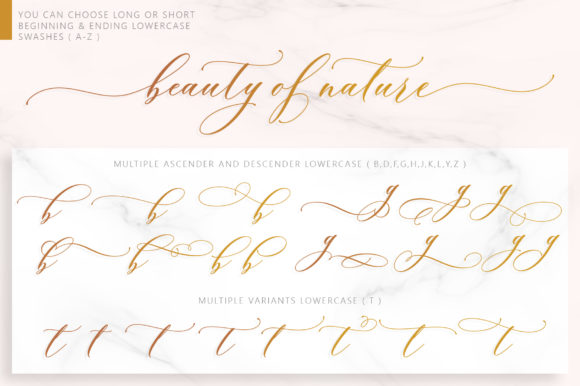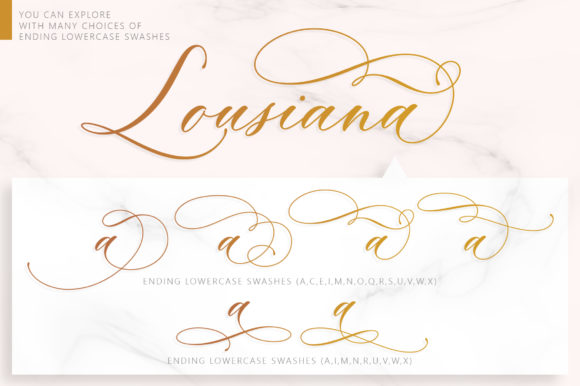
Brendisa Font
db-ku.com - Script & Handwritten -- Brendisa is a modern calligraphy script font. Add this font to your favorite creative ideas and notice how it makes them come alive!